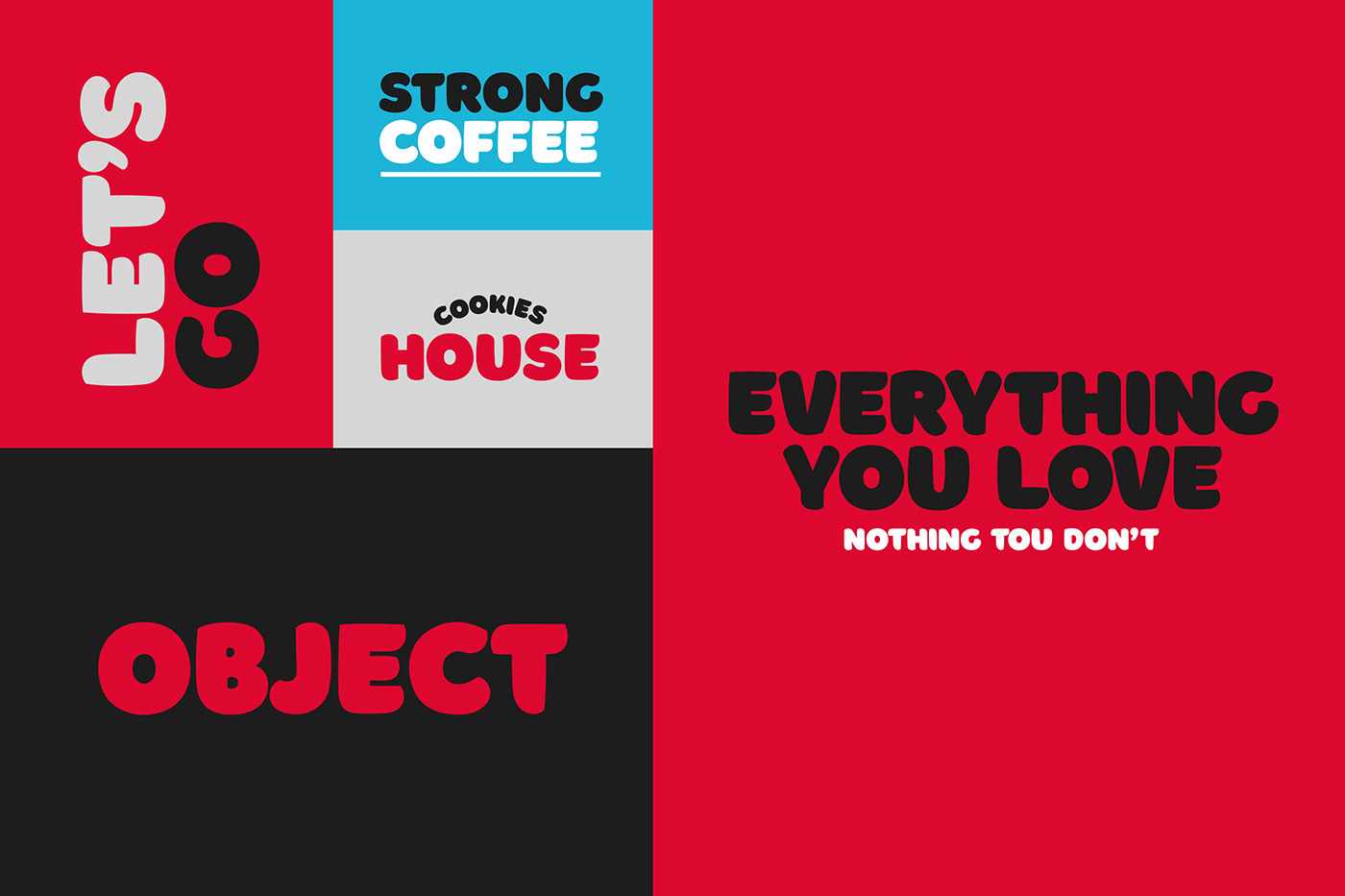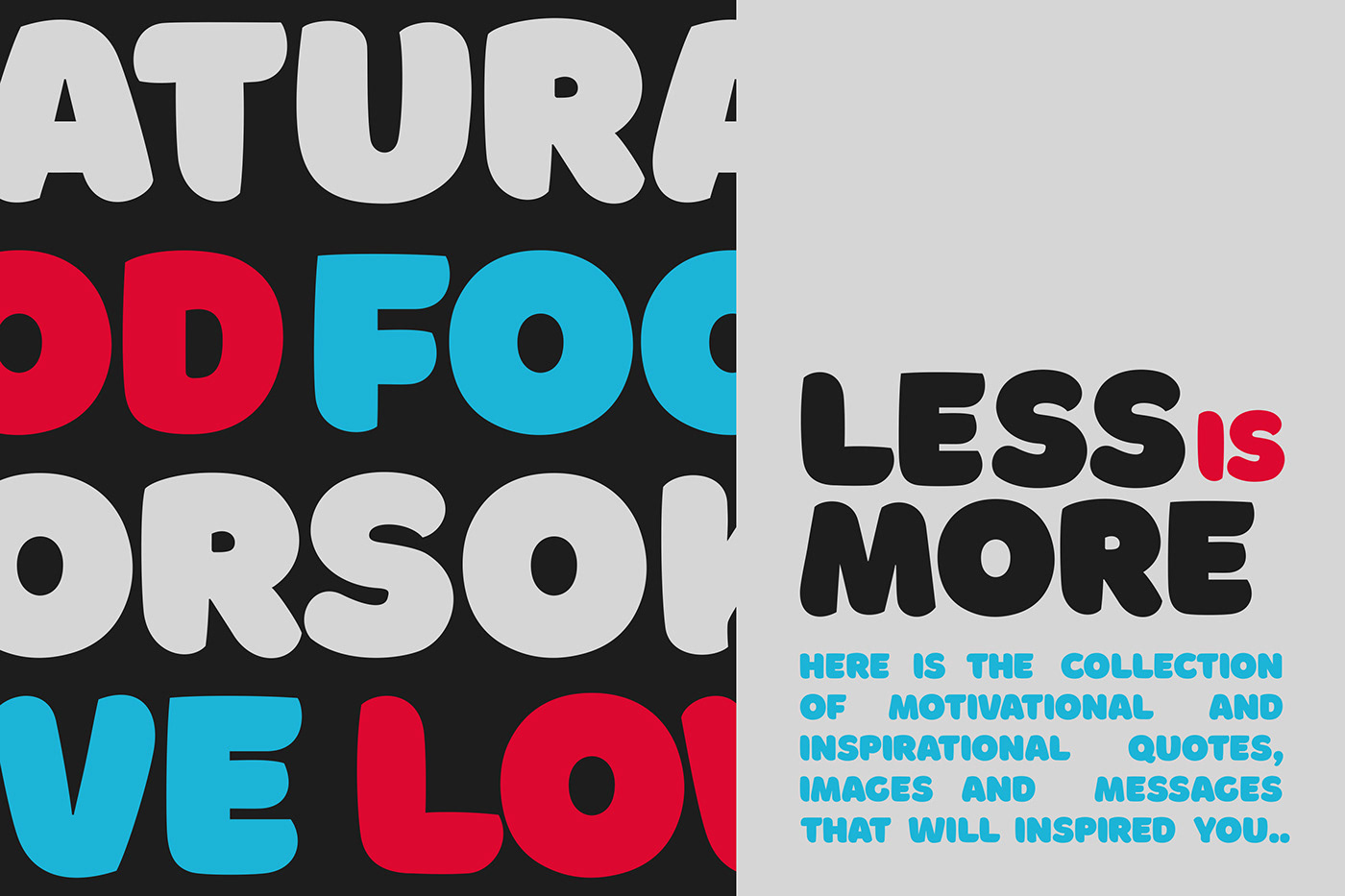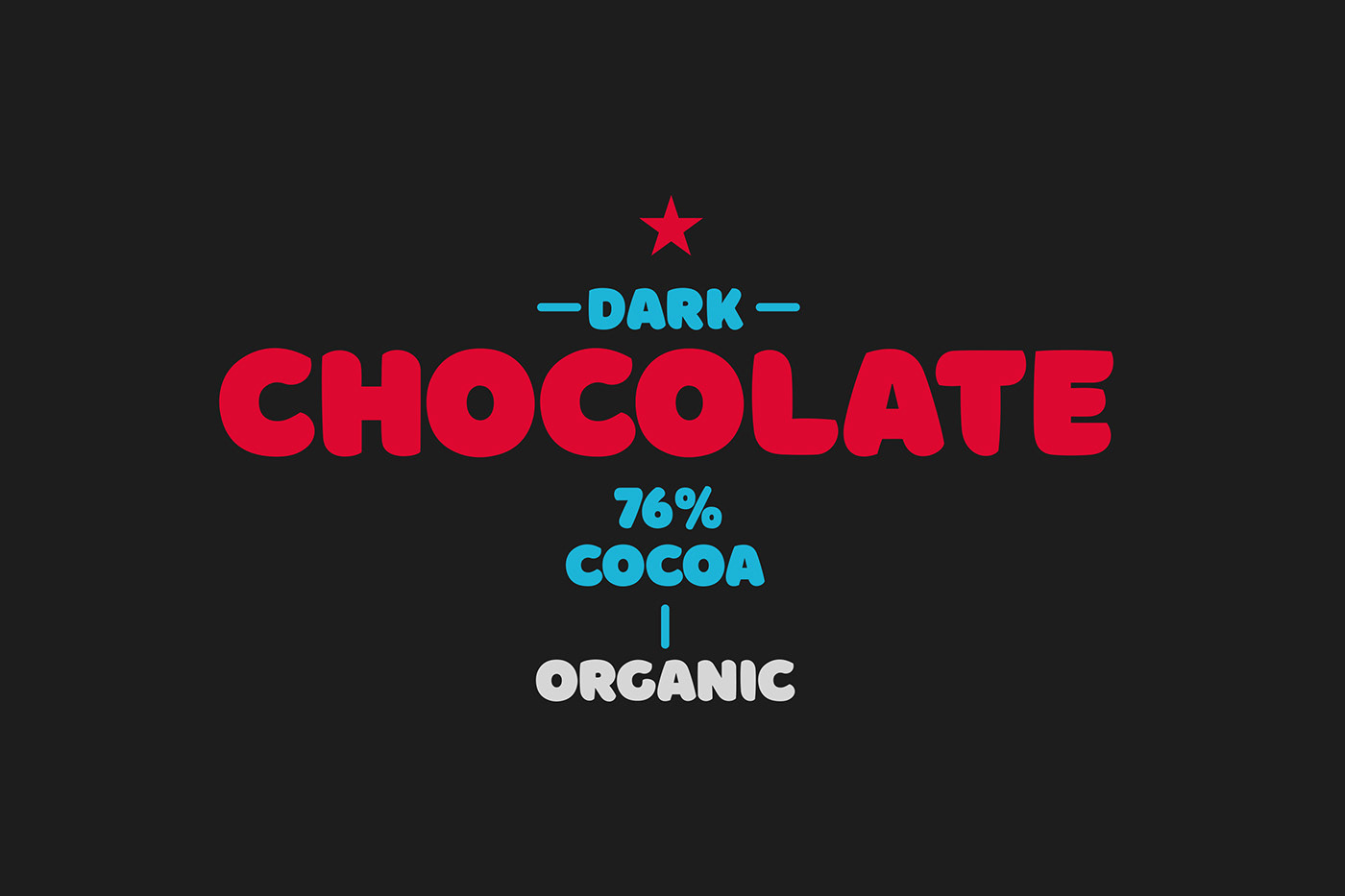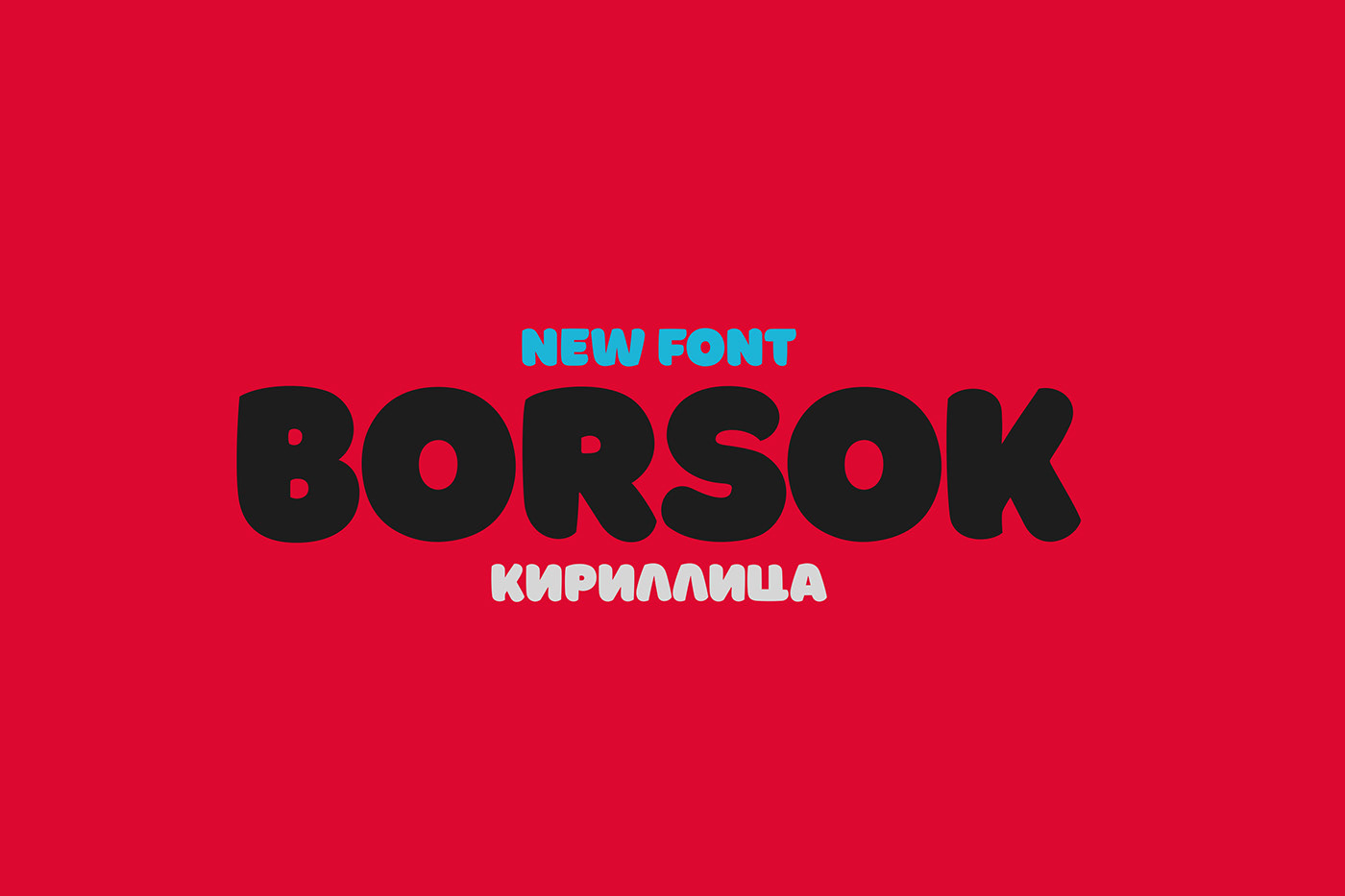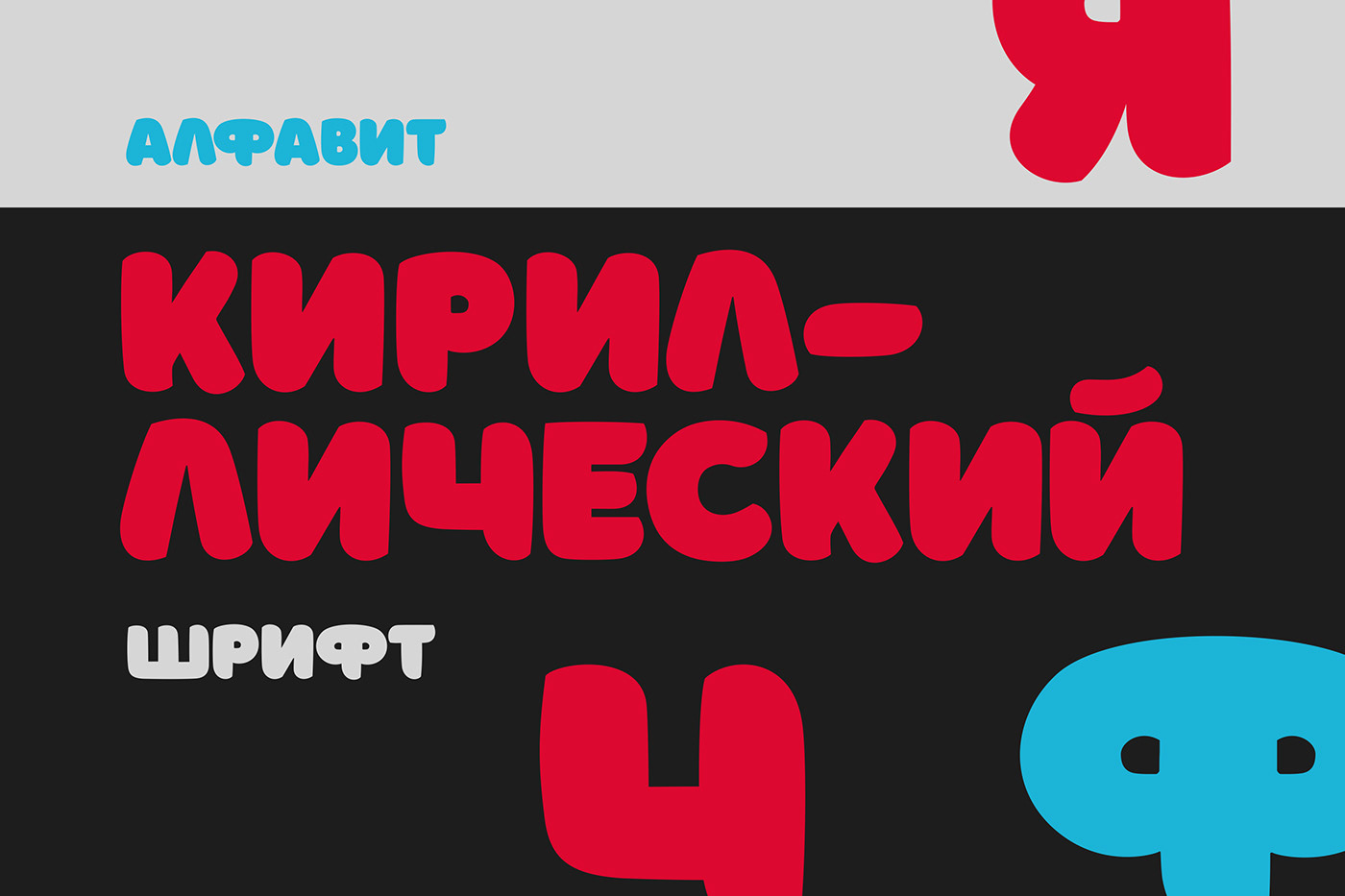
Borsok Typeface
Balloons is a bold, fun font that looks great in greeting cards, posters, or craft and cutting projects! It is was designed and shares by Dastan Miraj. This font is perfect for quotes, headings, blogs, logos,t-shirt, invitations and more! It is also great for children’s designs!